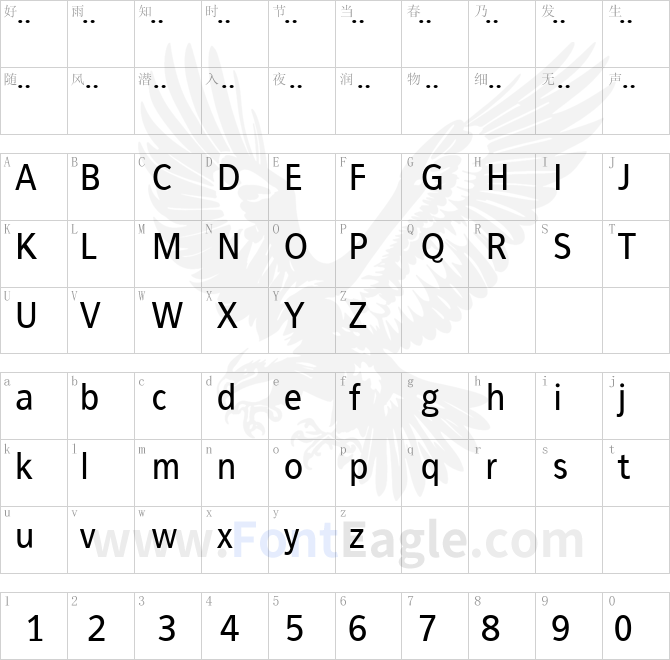
- Font name:FrancophilSans
FrancophilSans is a great font, widely used in graphic design, single-page menu design, poster design and other fields, and is deeply loved by designers.FrancophilSans download.